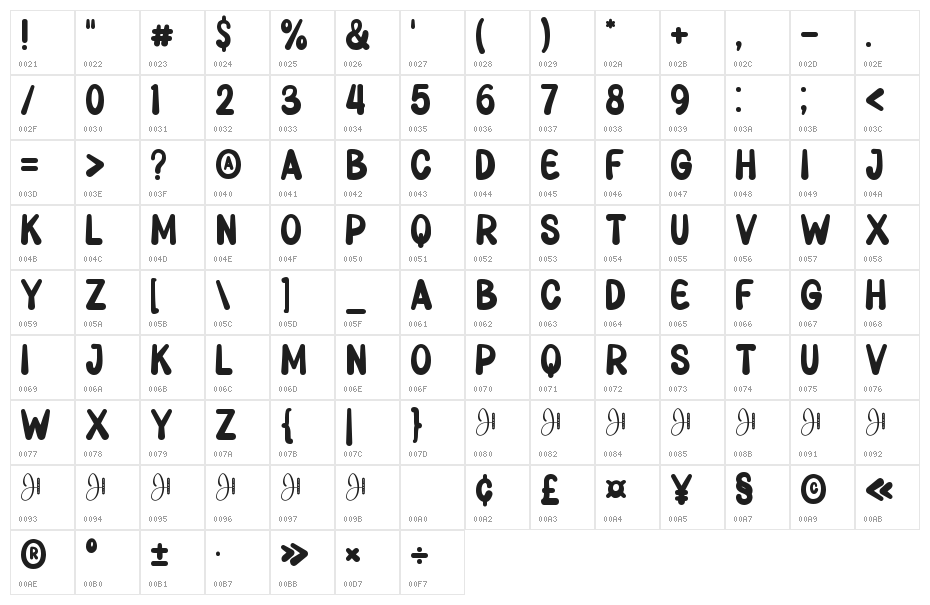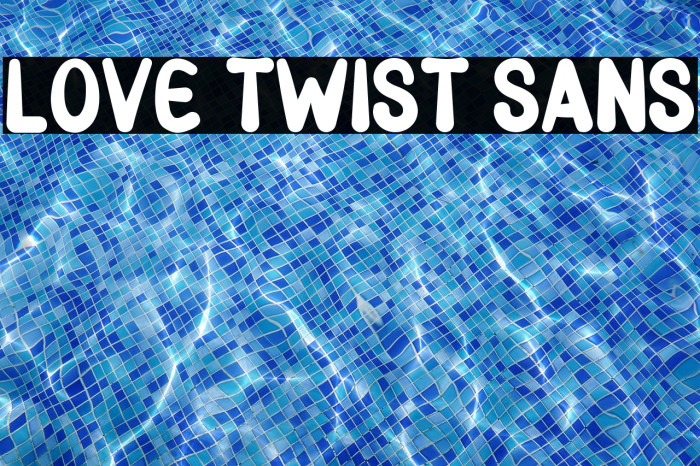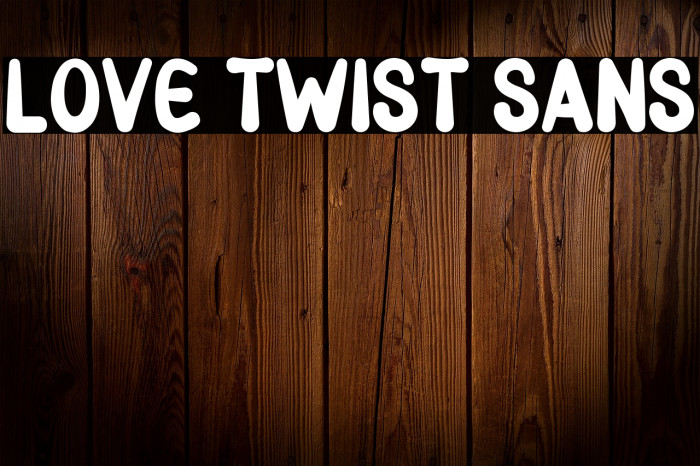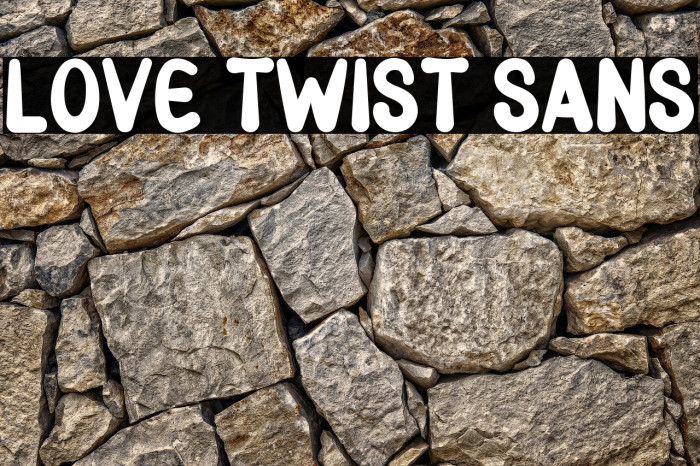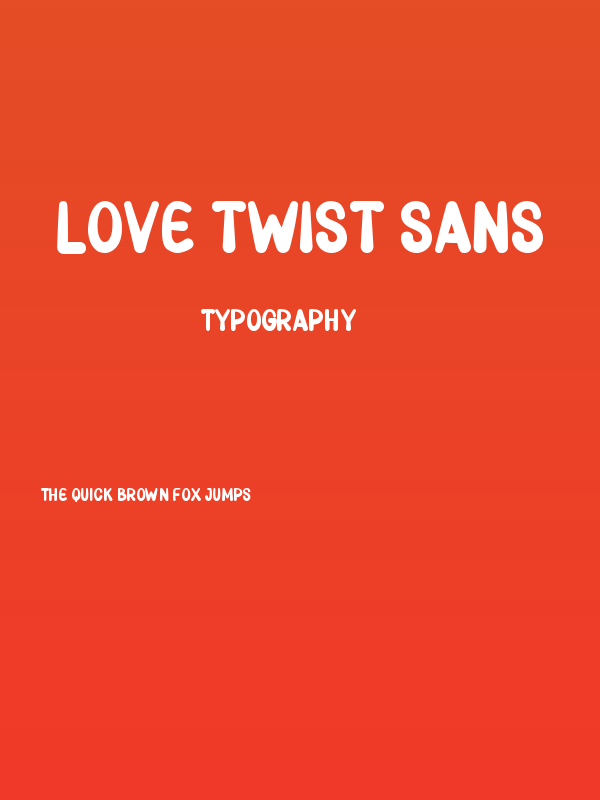
Love Twist Sans Font
Love Twist Sans Description
This playful and bold typeface features rounded, thick strokes that give it a friendly and approachable appearance. The characters are consistently wide, with a slight twist in their form that adds a unique flair. The uppercase and lowercase letters maintain a uniform style, ensuring readability while still being visually interesting. The numbers and special characters follow the same design principles, making them cohesive with the rest of the font. Its boldness and distinctive style make it stand out, perfect for projects that require a touch of whimsy and creativity.
Overall StylePlayful, Creative
Proposed ProjectsIdeal for children's books, playful branding, posters, and creative advertising.